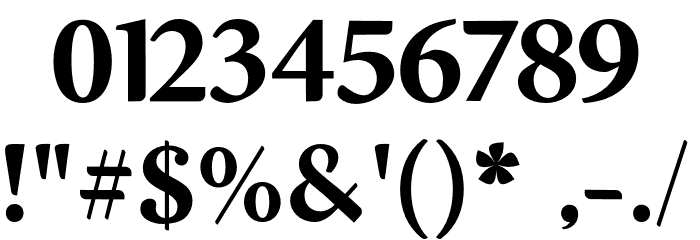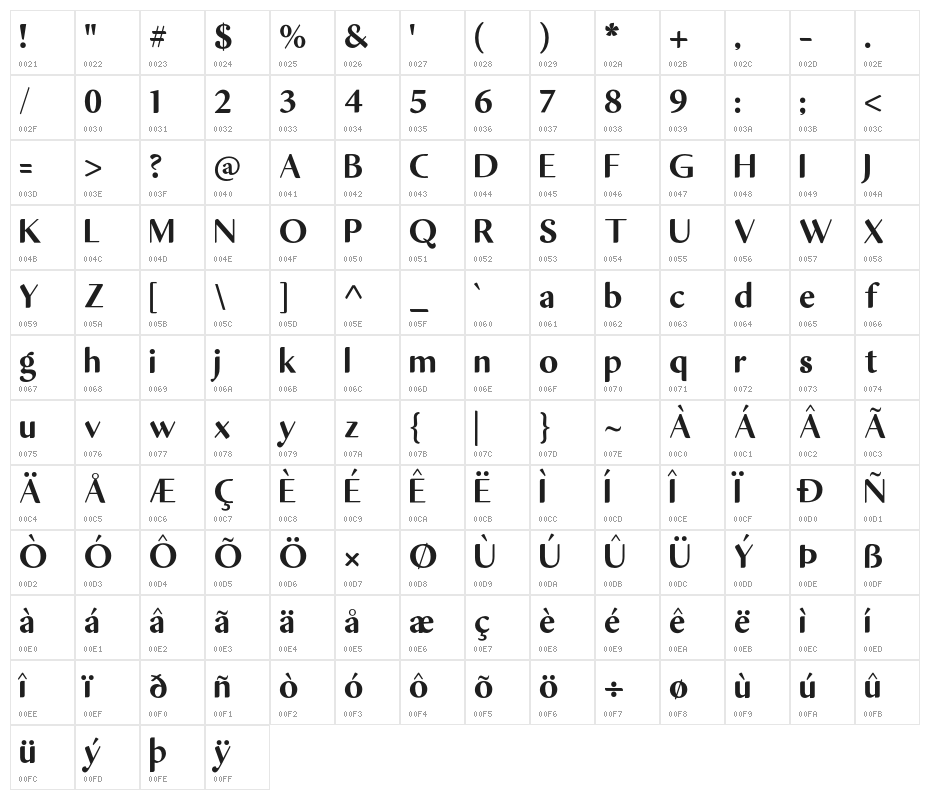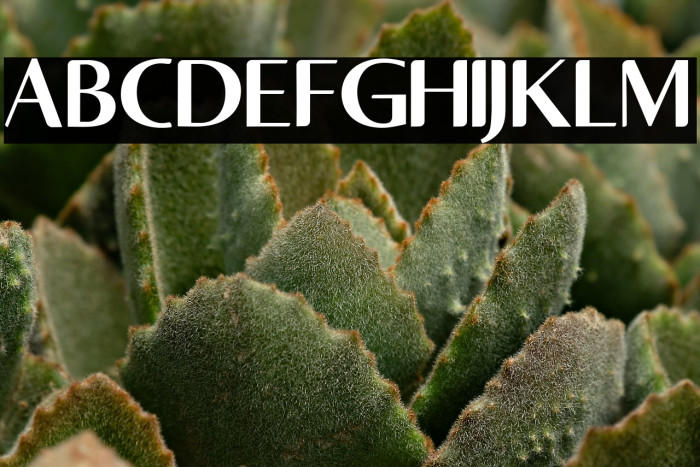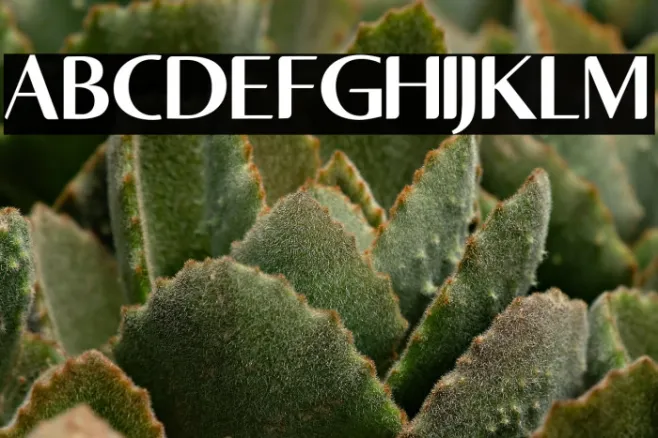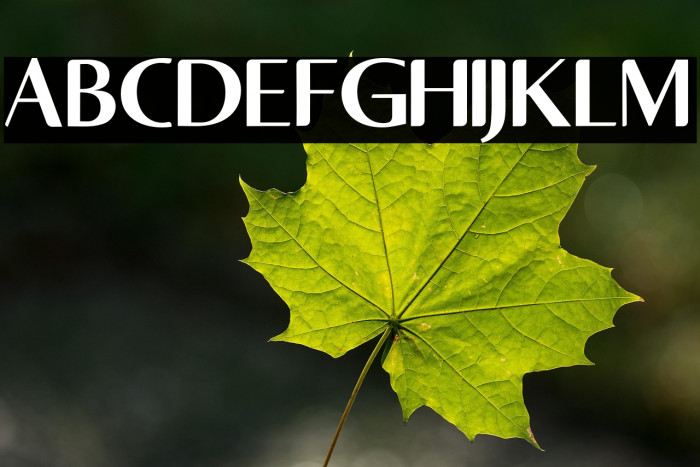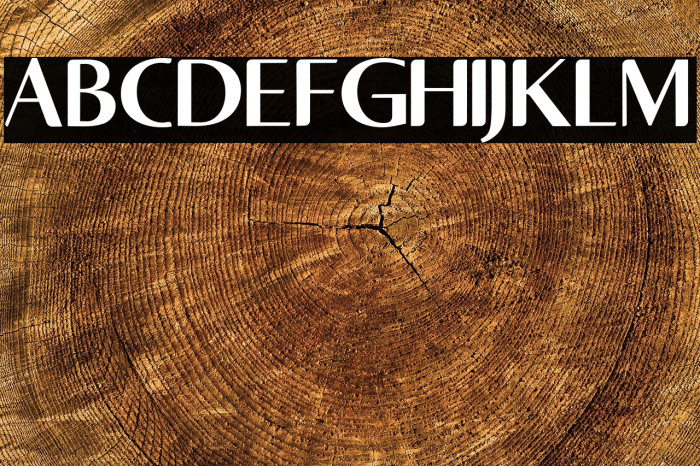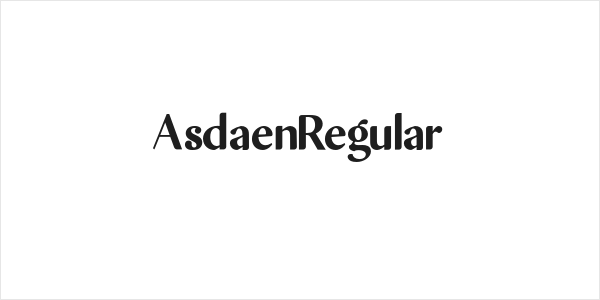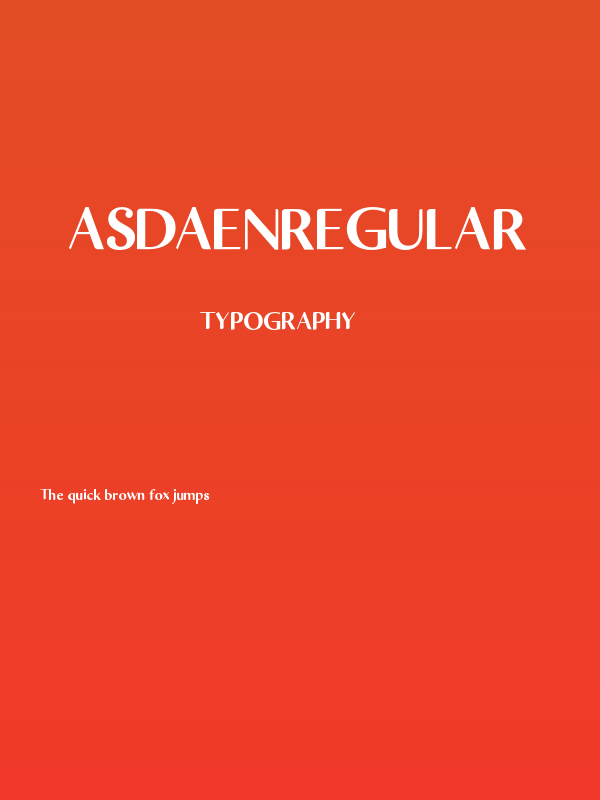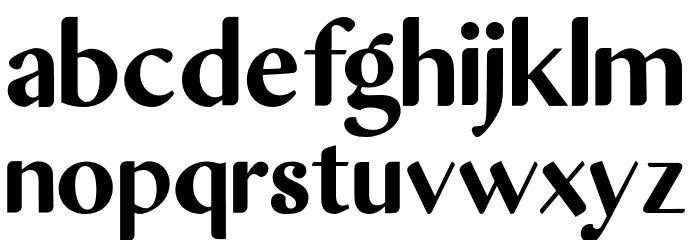
AsdaenRegular Font
AsdaenRegular Description
This font features a bold and dynamic design with a modern flair. The uppercase letters are characterized by strong, clean lines and a slight curvature that adds a touch of elegance. The lowercase letters maintain a consistent style, with rounded edges that provide a friendly and approachable feel. The numerals are well-proportioned, ensuring readability and balance. Special characters are crafted with attention to detail, complementing the overall aesthetic. The font's design is versatile, making it suitable for a variety of applications, from digital media to print.